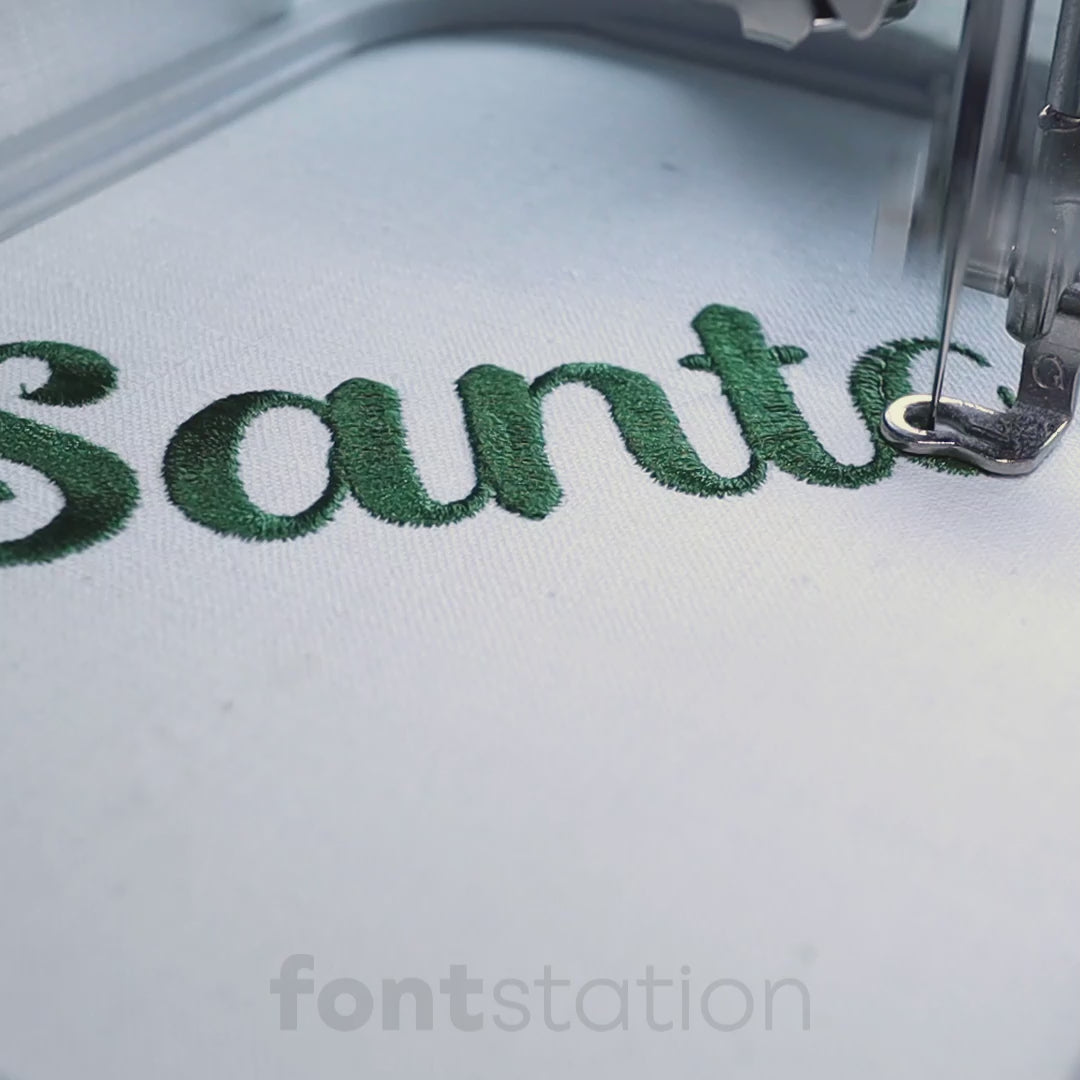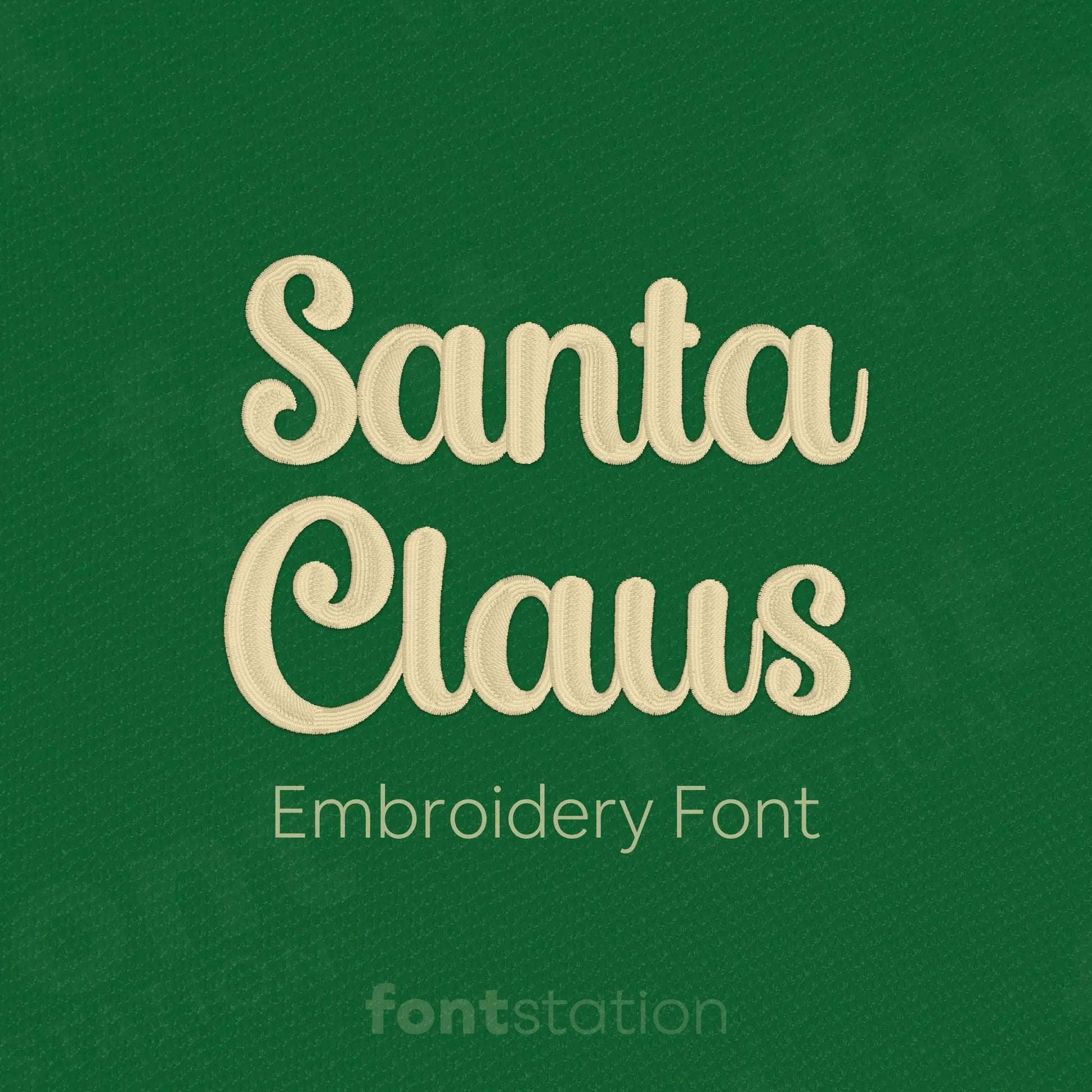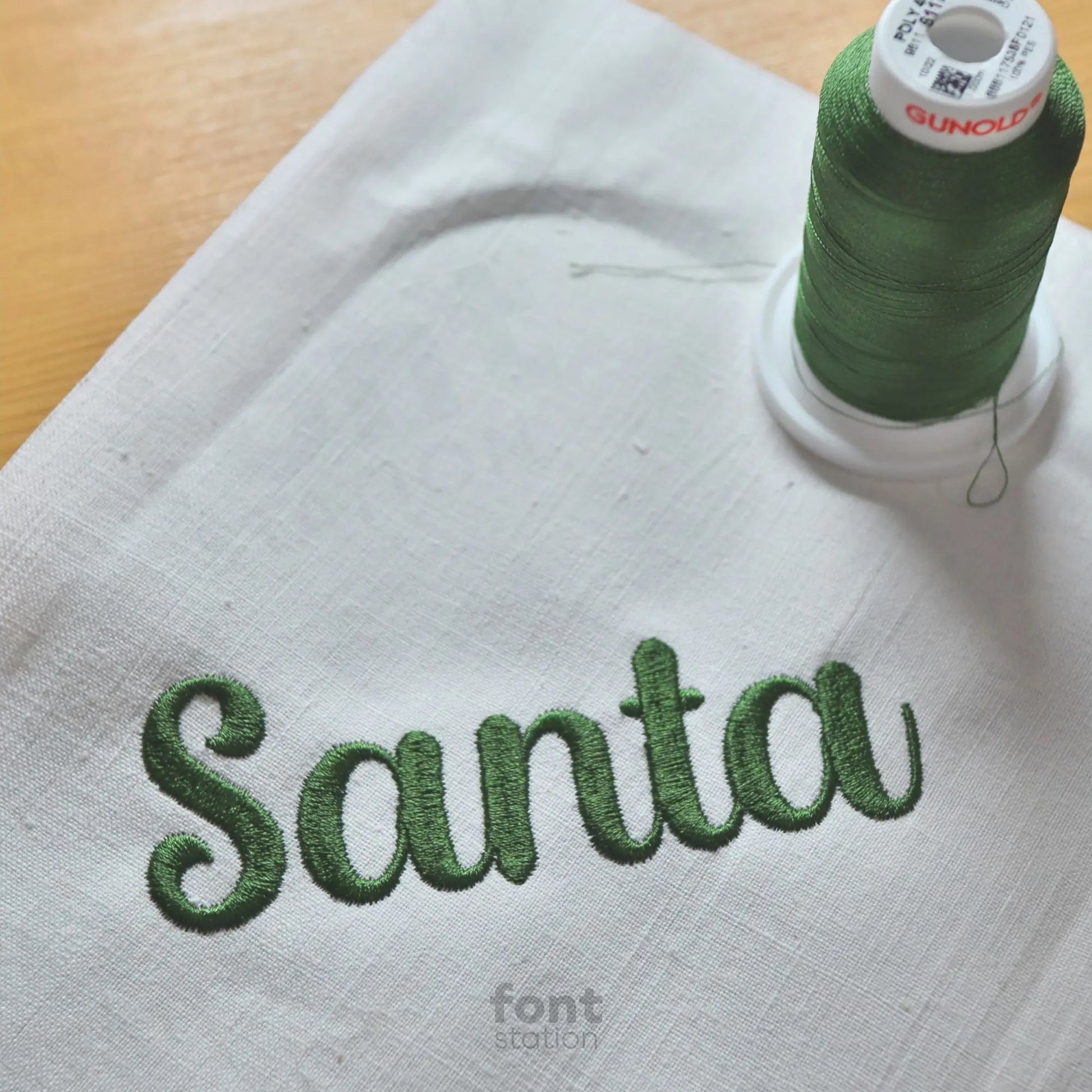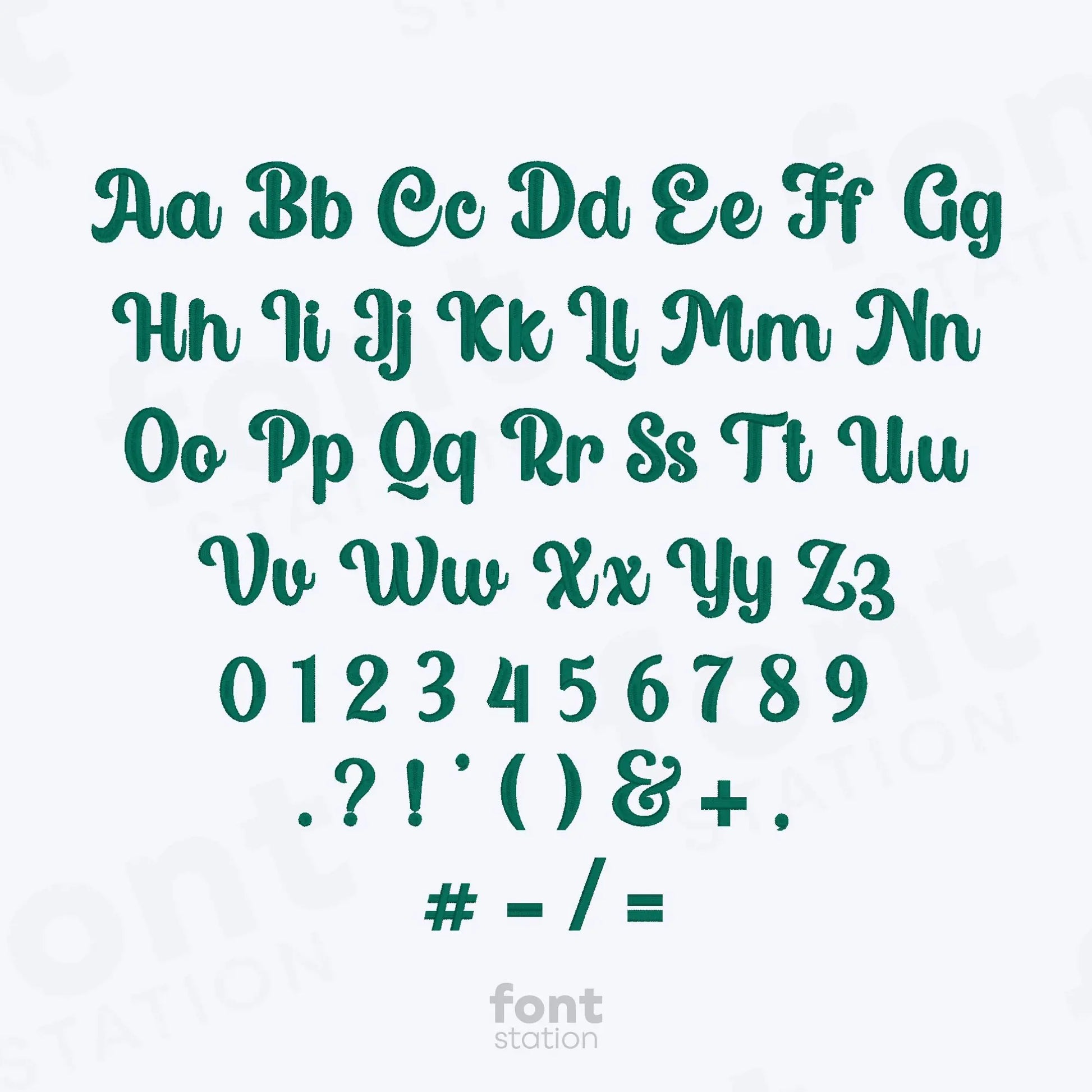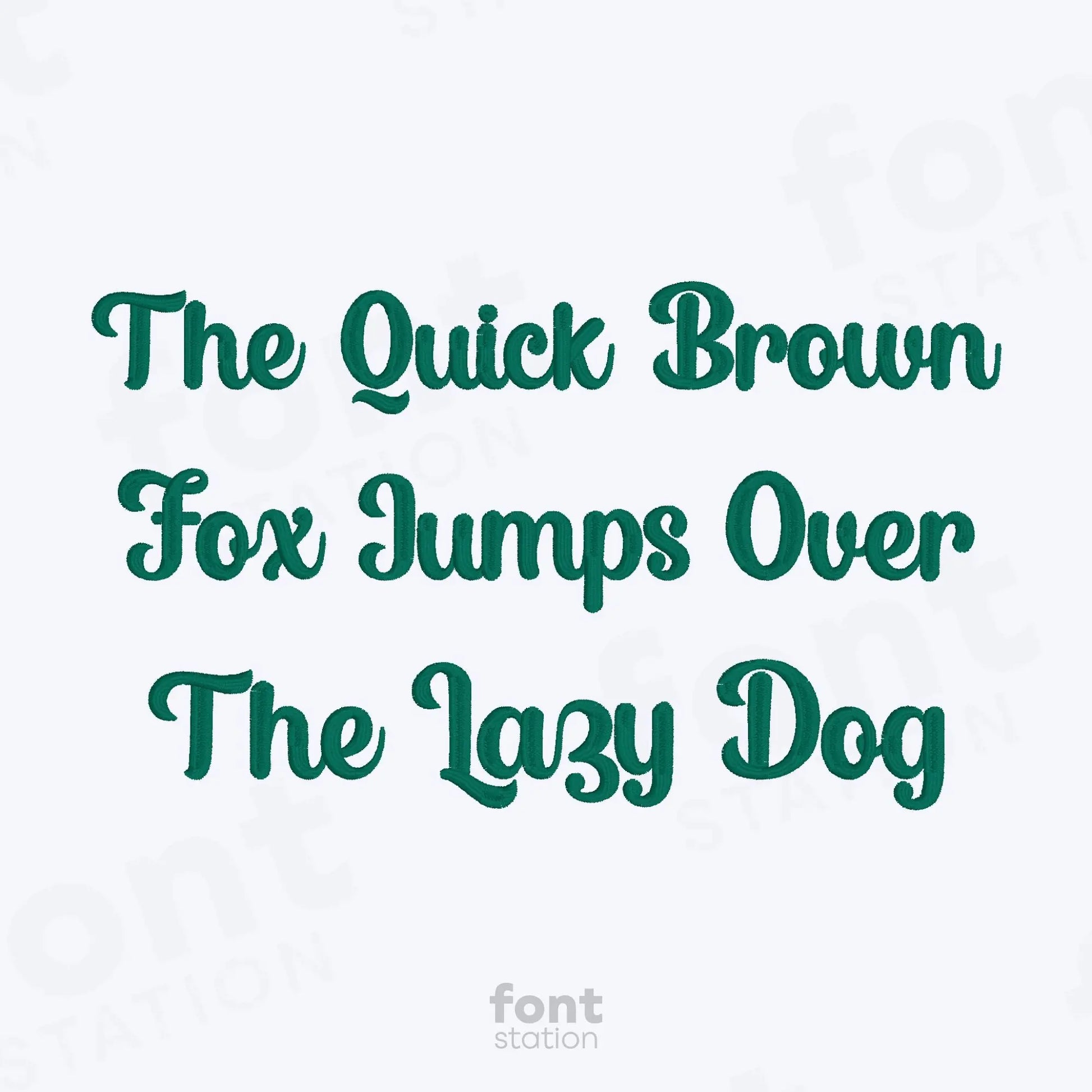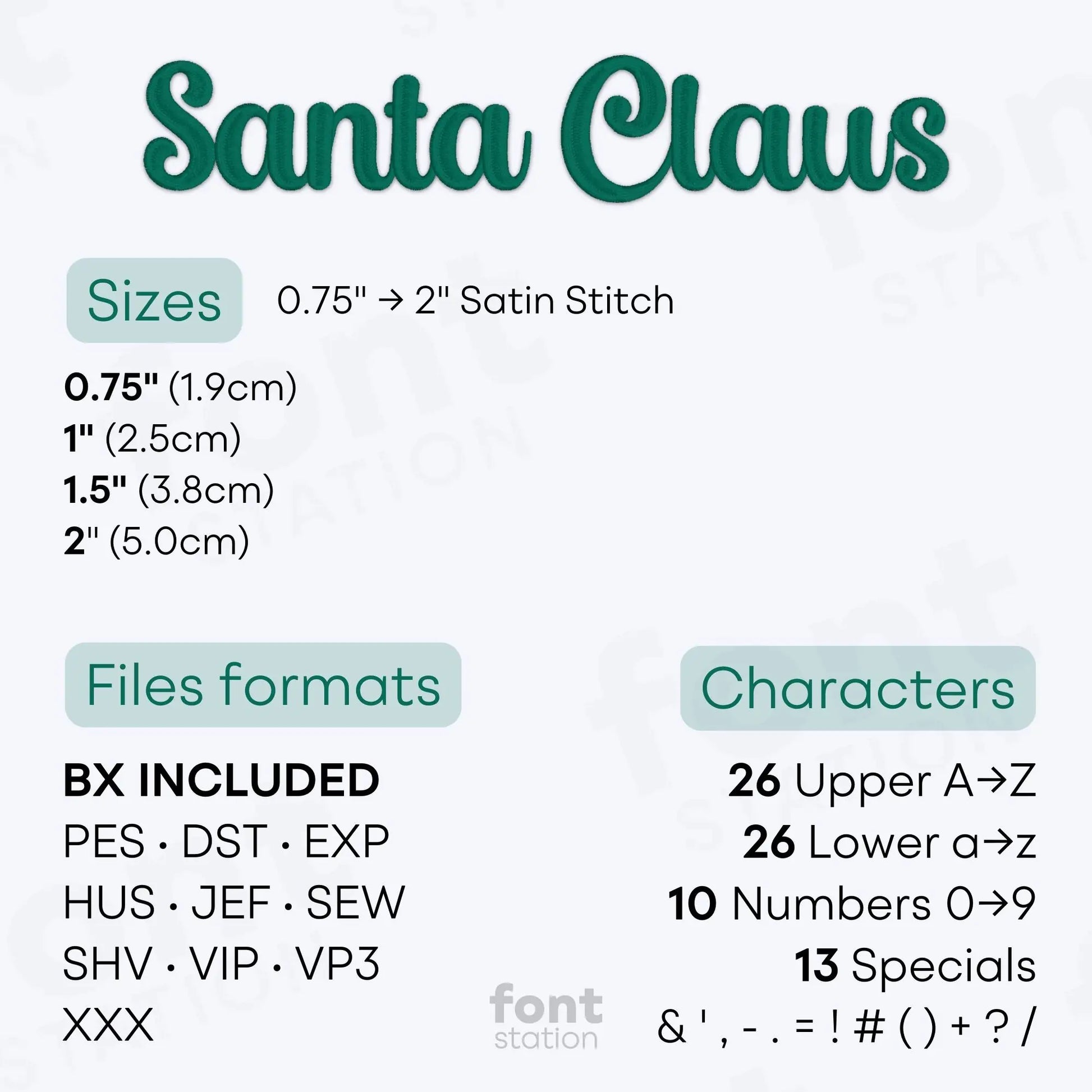
Santa Claus Embroidery Font
Introducing our Santa Claus embroidery font, a festive script alphabet perfect for holiday designs. These cheerful letters stitch beautifully on any embroidery machine, making it ideal for your next Christmas embroidery project.
About the Santa Claus Embroidery Font
Characters: 26 uppercase, 26 lowercase, 10 numbers, and symbols & ' , - . = ! # ( ) + ? /
Bring holiday magic to your projects with our Santa Claus embroidery font, a festive script-style alphabet for Christmas embroidery designs.
The Santa Claus embroidery font features a flowing, decorative script alphabet that captures the spirit of the season. These elegant, festive embroidery letters are perfect for stockings, Santa sacks, holiday gifts, and seasonal decor. Digitized for smooth, professional results on any embroidery machine, this font is available in BX, PES, DST, JEF, EXP, VP3, and HUS formats. Whether you're stitching names, quotes, or Christmas messages, this embroidery font adds classic charm to your holiday designs.